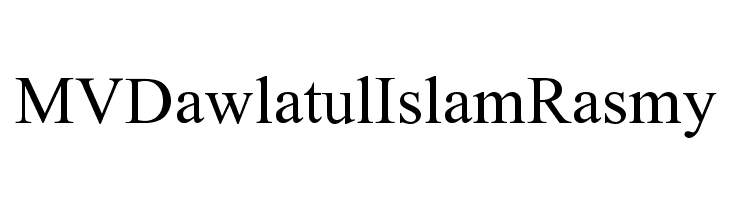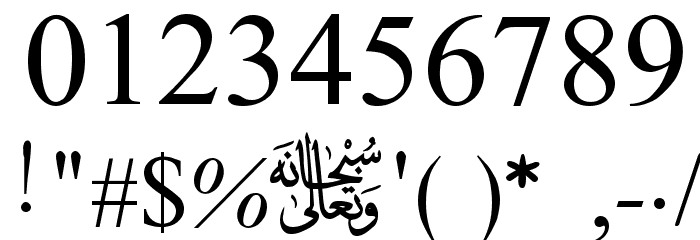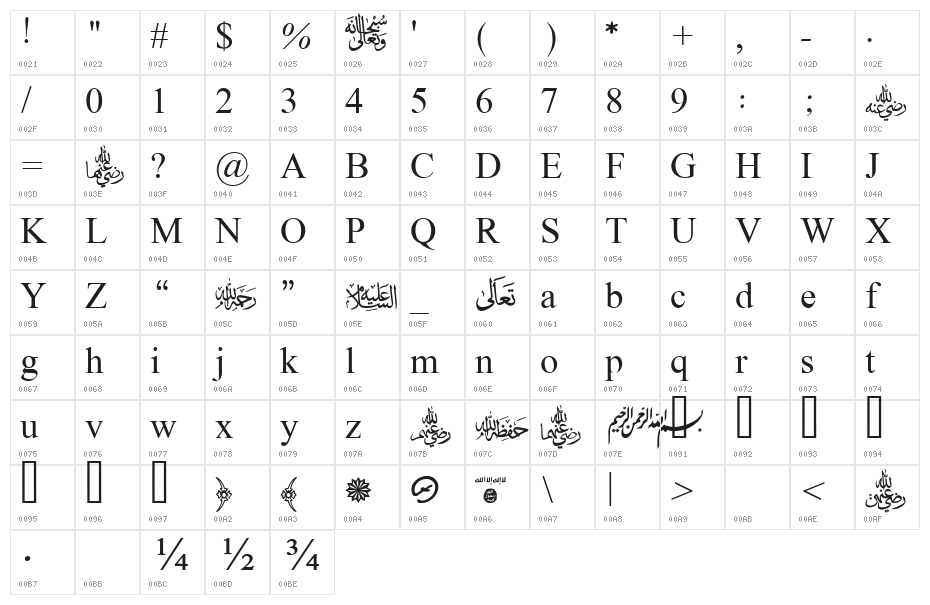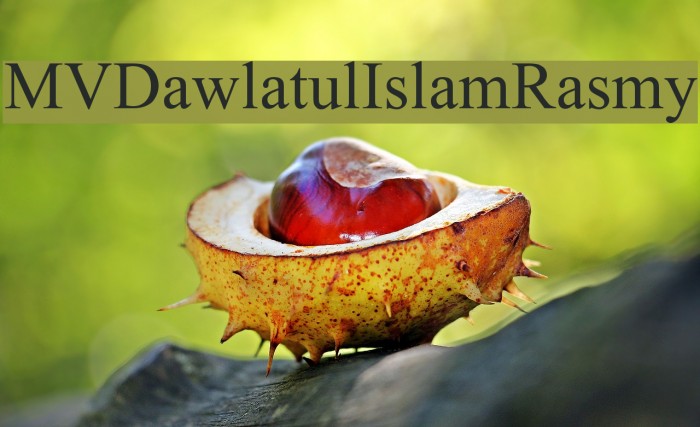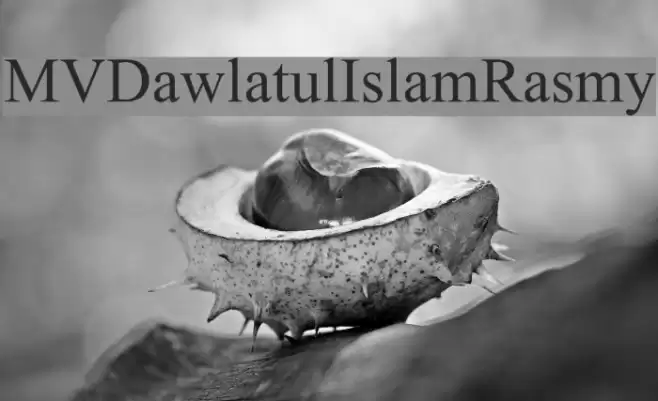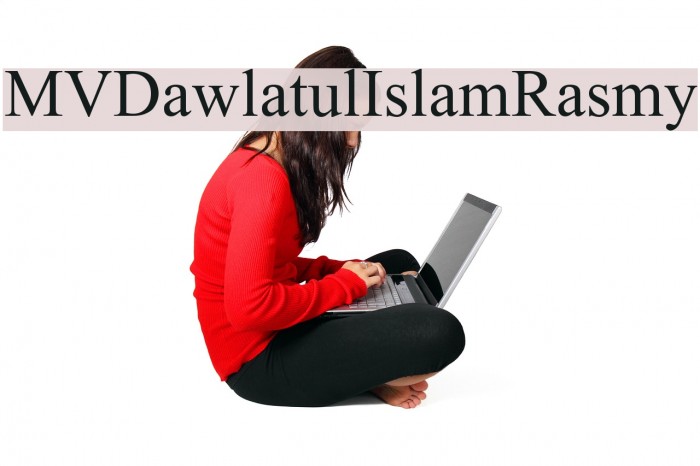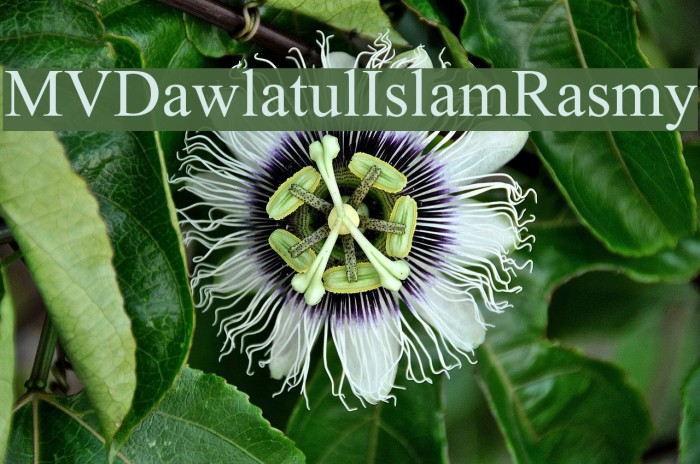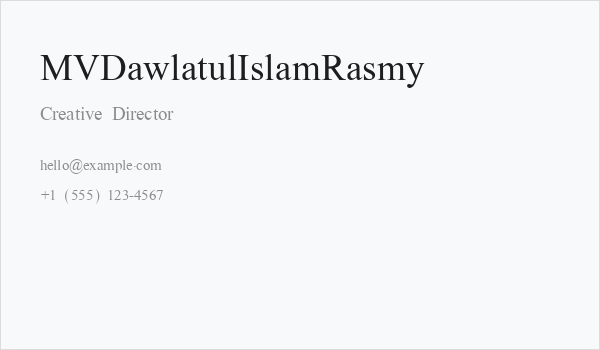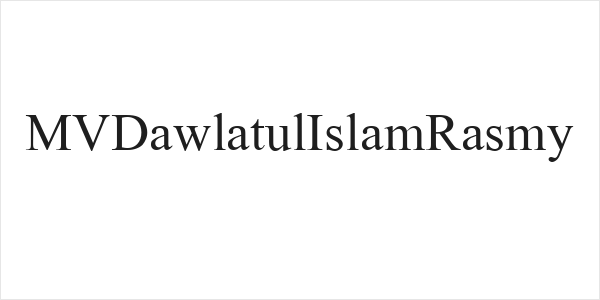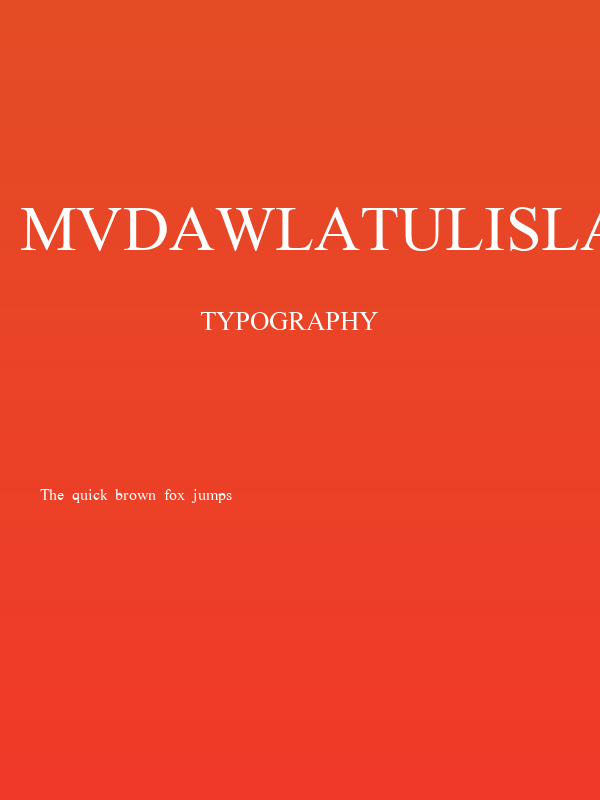
MVDawlatulIslamRasmy Font
MVDawlatulIslamRasmy Description
This font exhibits a classic serif style with elegant and refined strokes. The uppercase letters are bold and commanding, while the lowercase characters maintain a balanced and harmonious appearance. The numerals are clear and legible, making them suitable for various applications. The special characters are well-integrated, adding versatility to the font's use. The overall design is timeless, offering a sophisticated look that can enhance both formal and creative projects. Its high contrast in stroke thickness contributes to its readability and aesthetic appeal.
| Proposed Projects | This font is perfect for projects that require a touch of elegance and sophistication, such as wedding invitations, formal documents, branding for luxury products, and editorial design. |